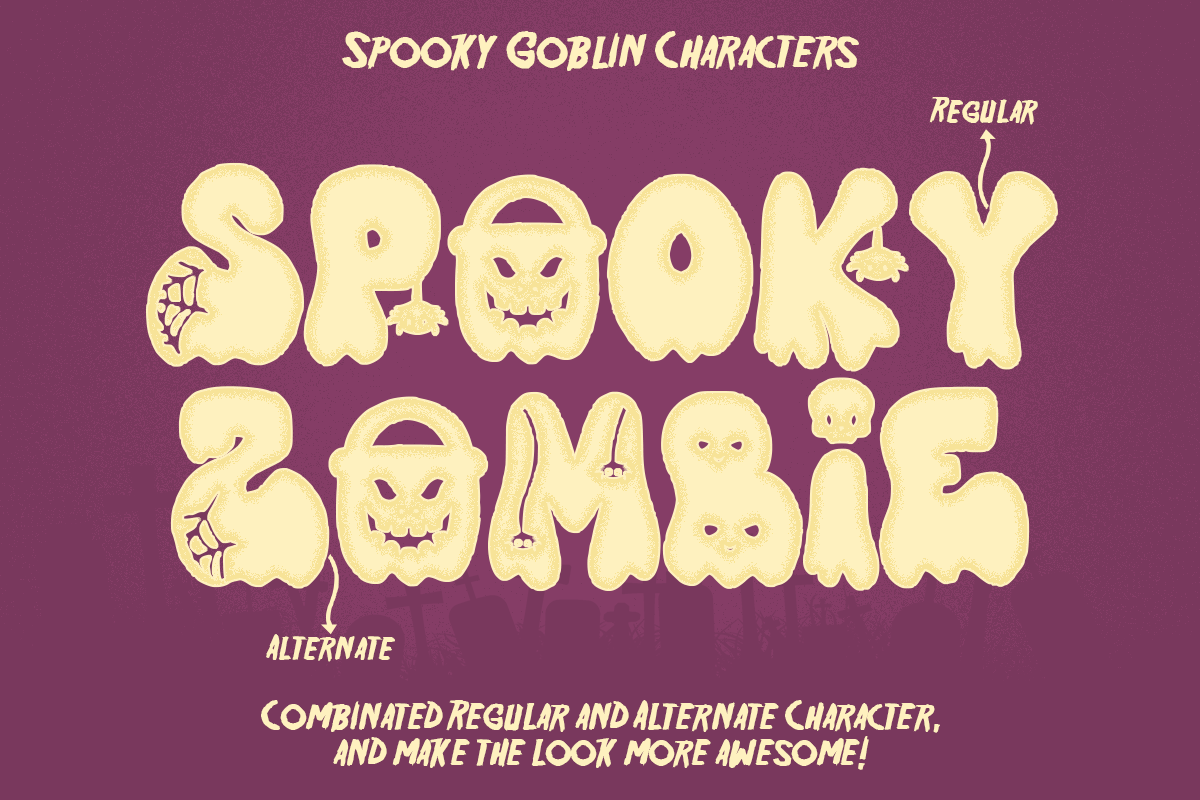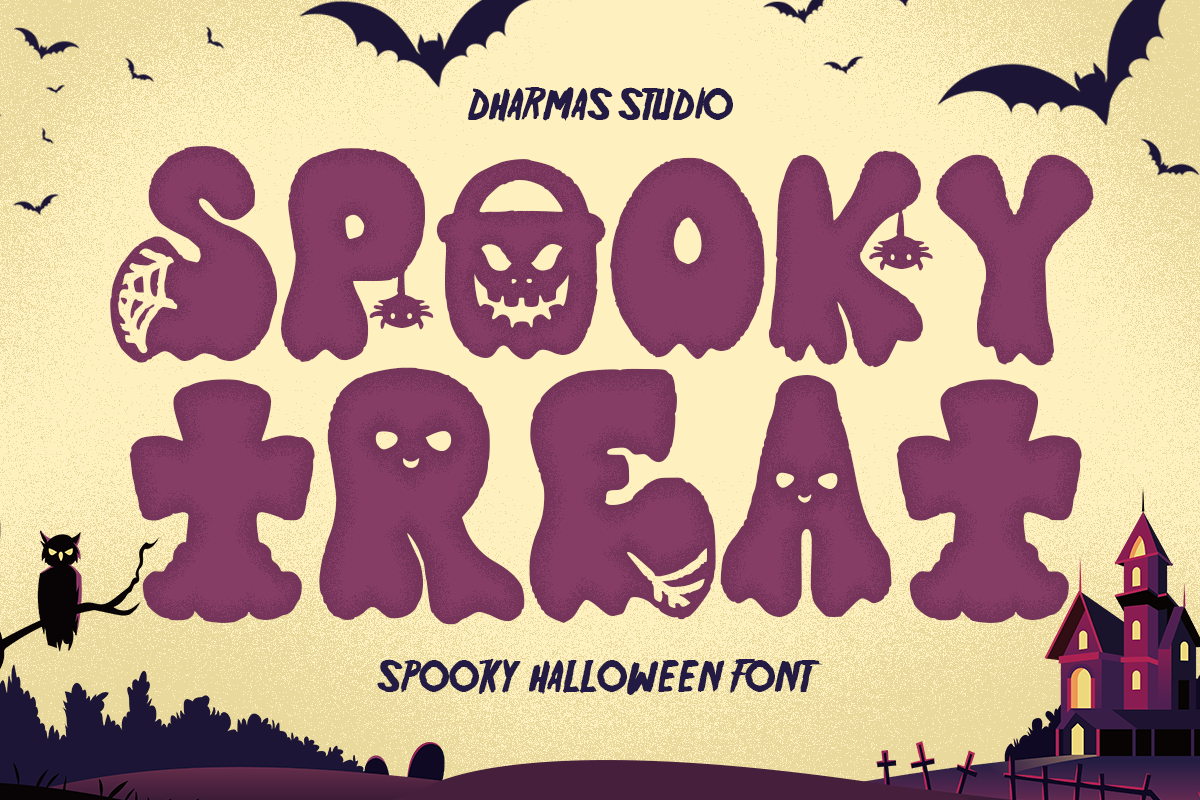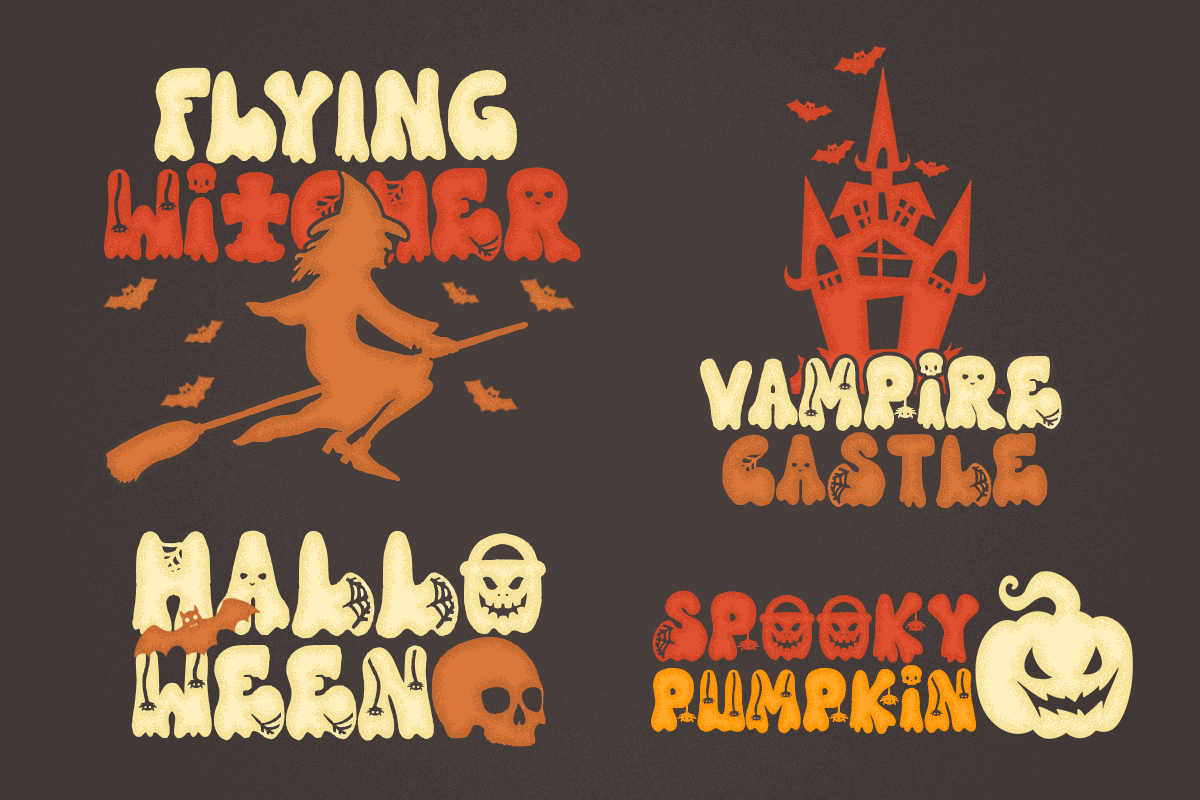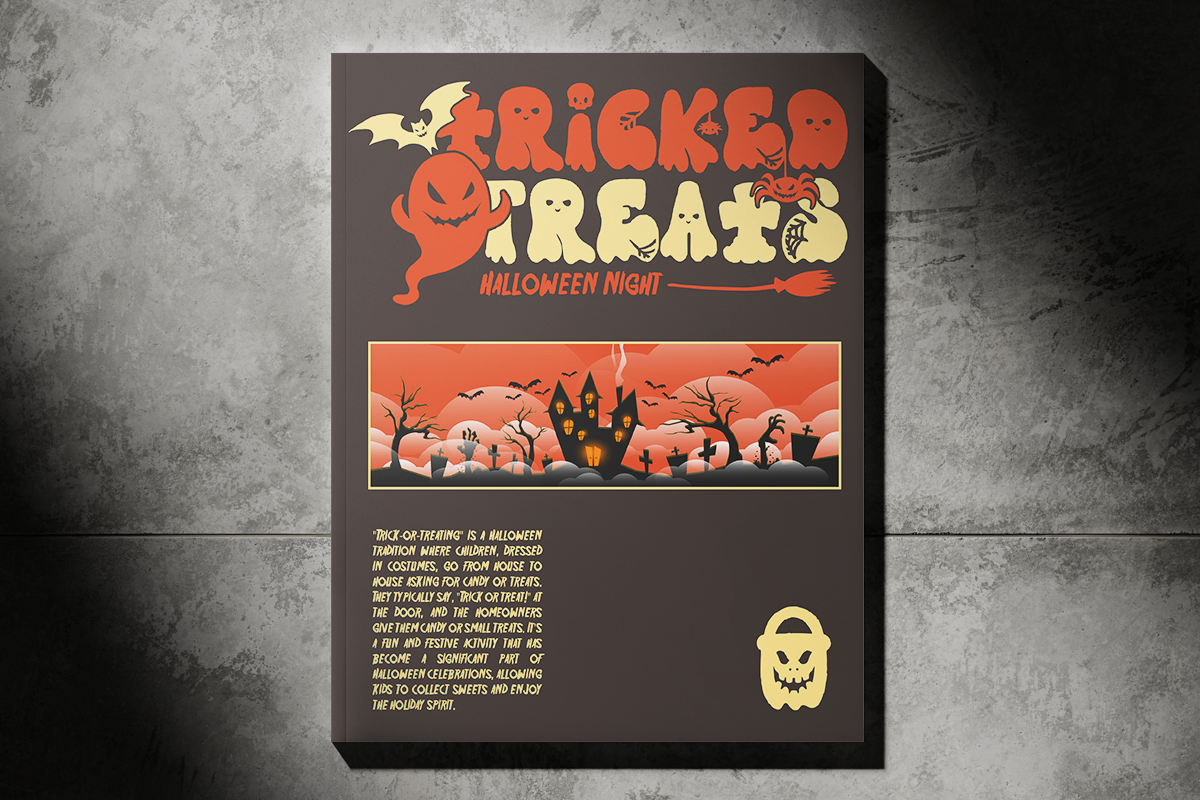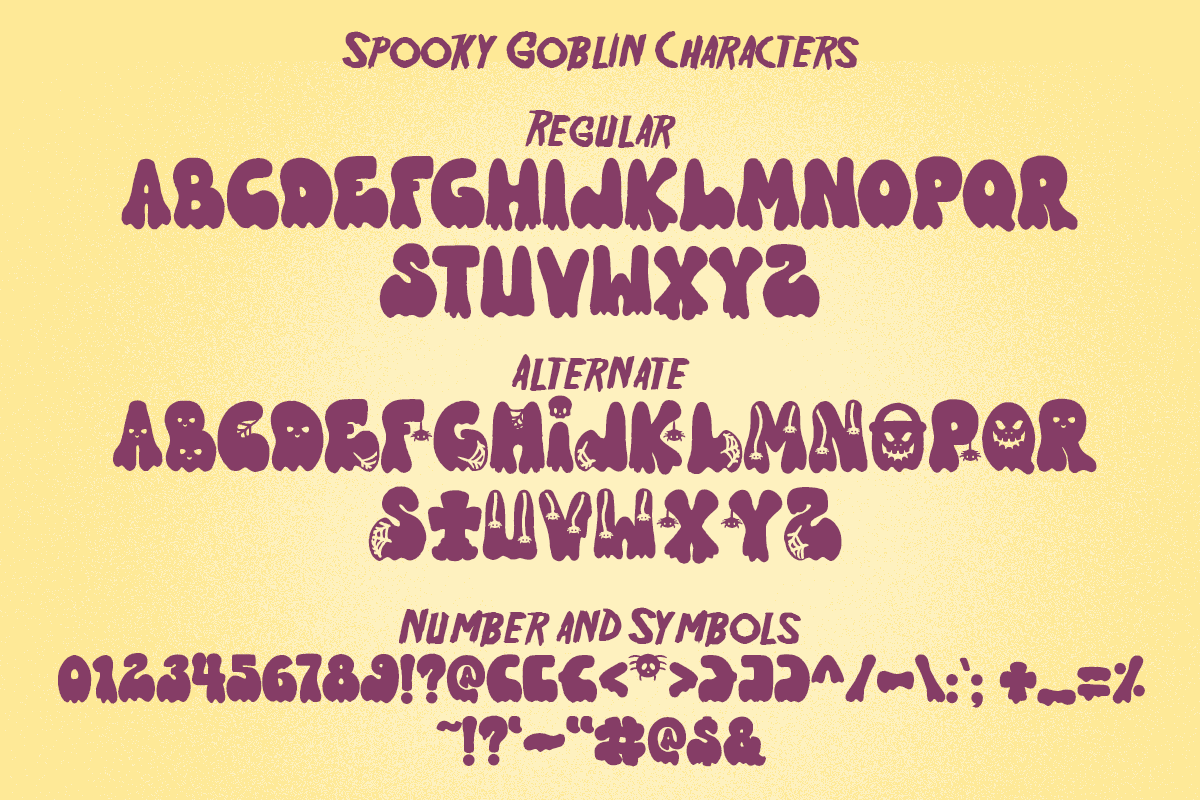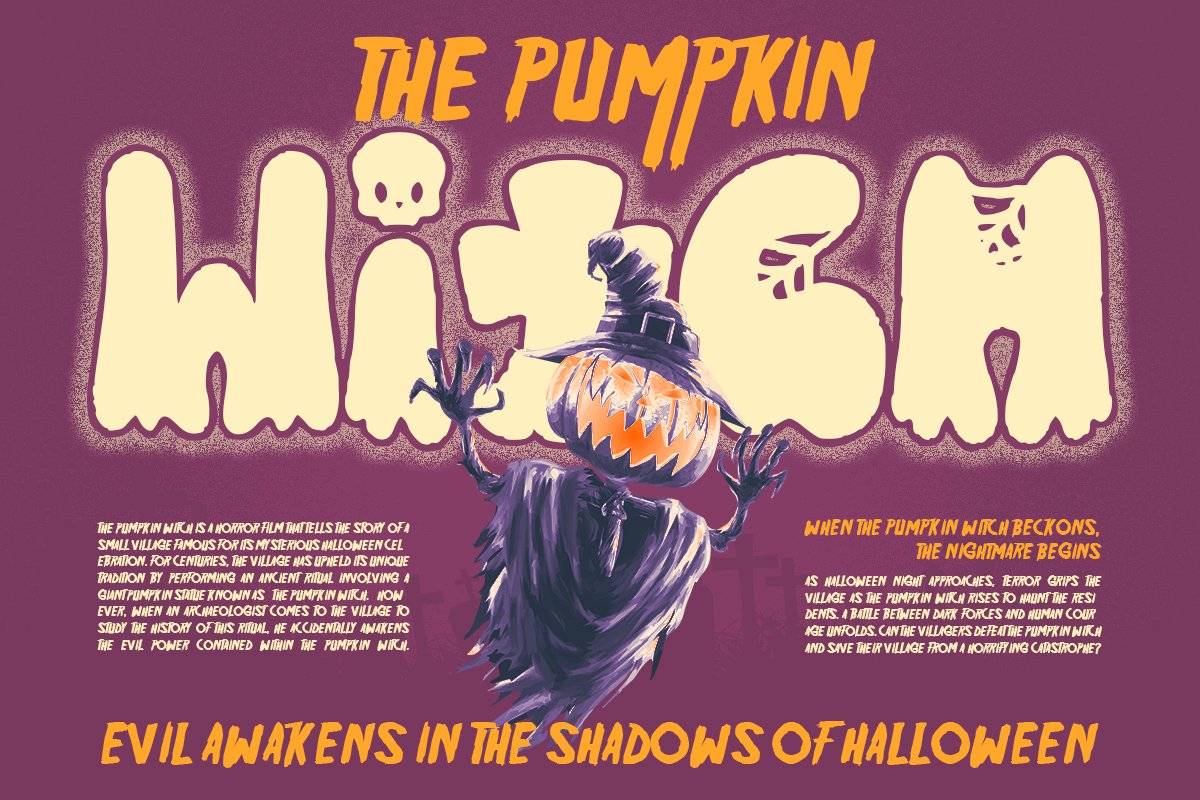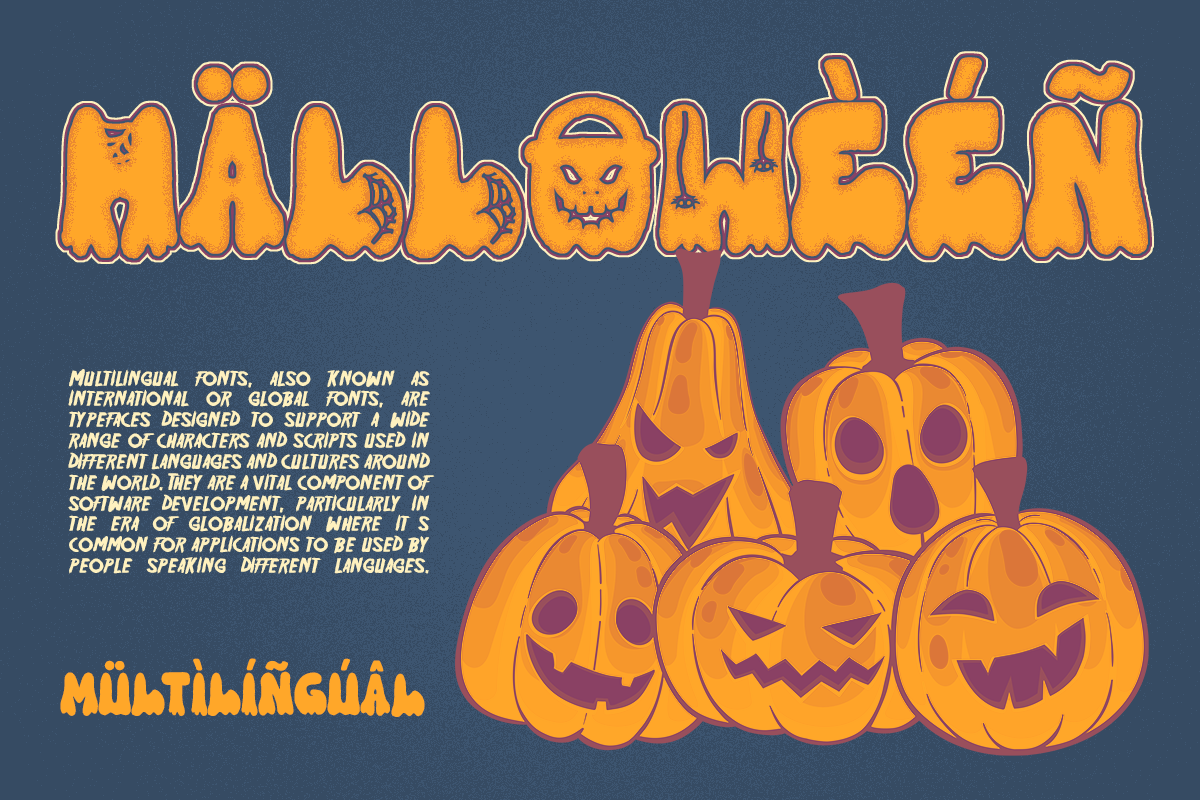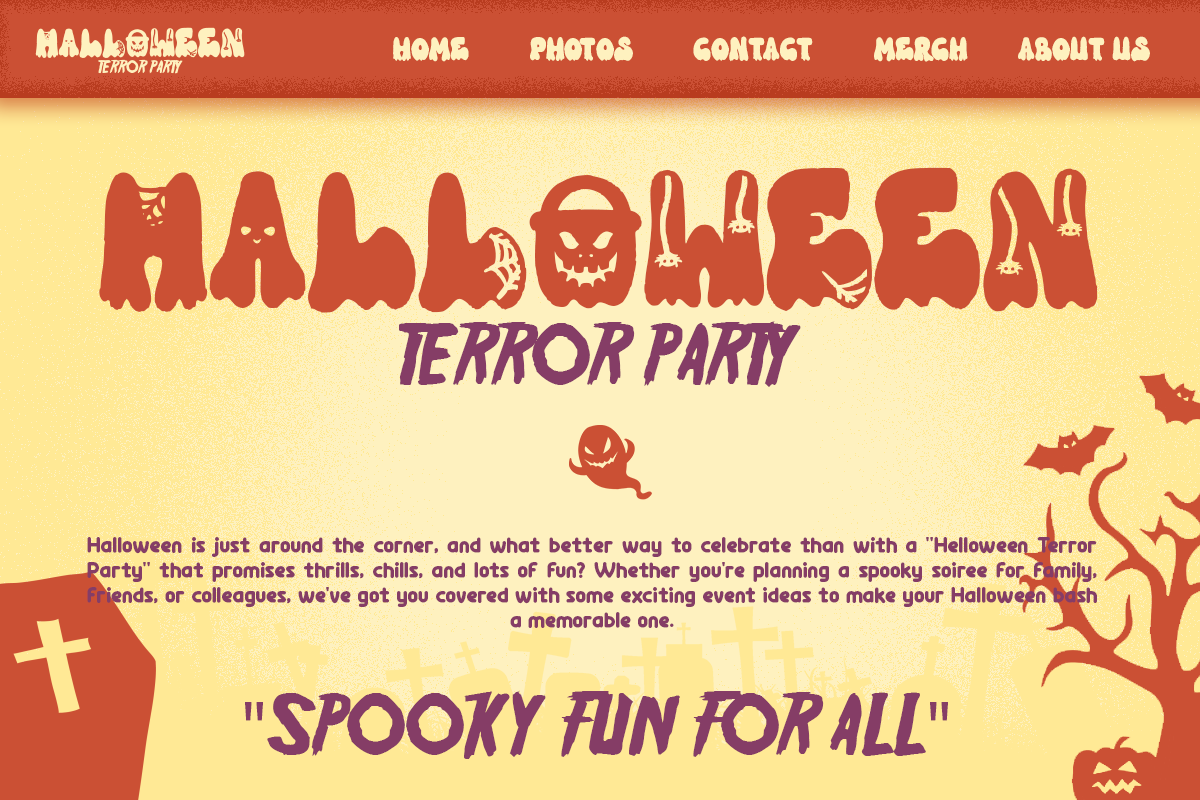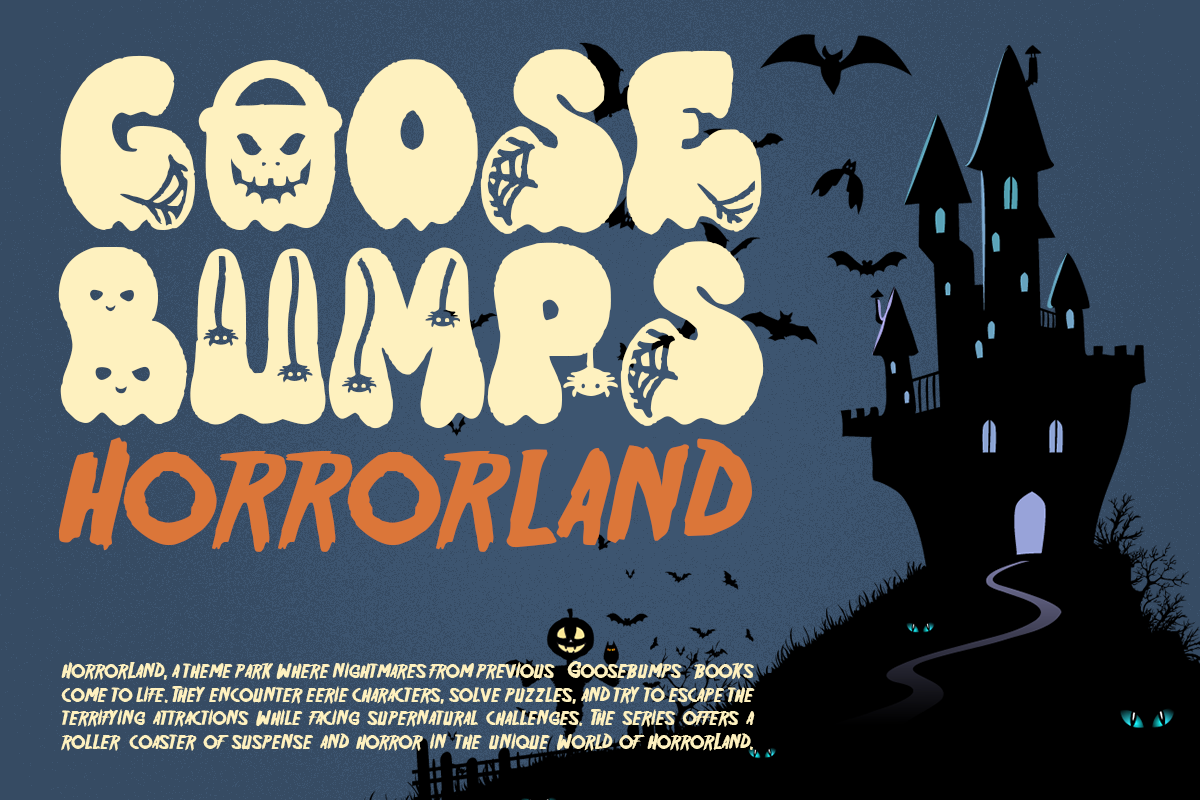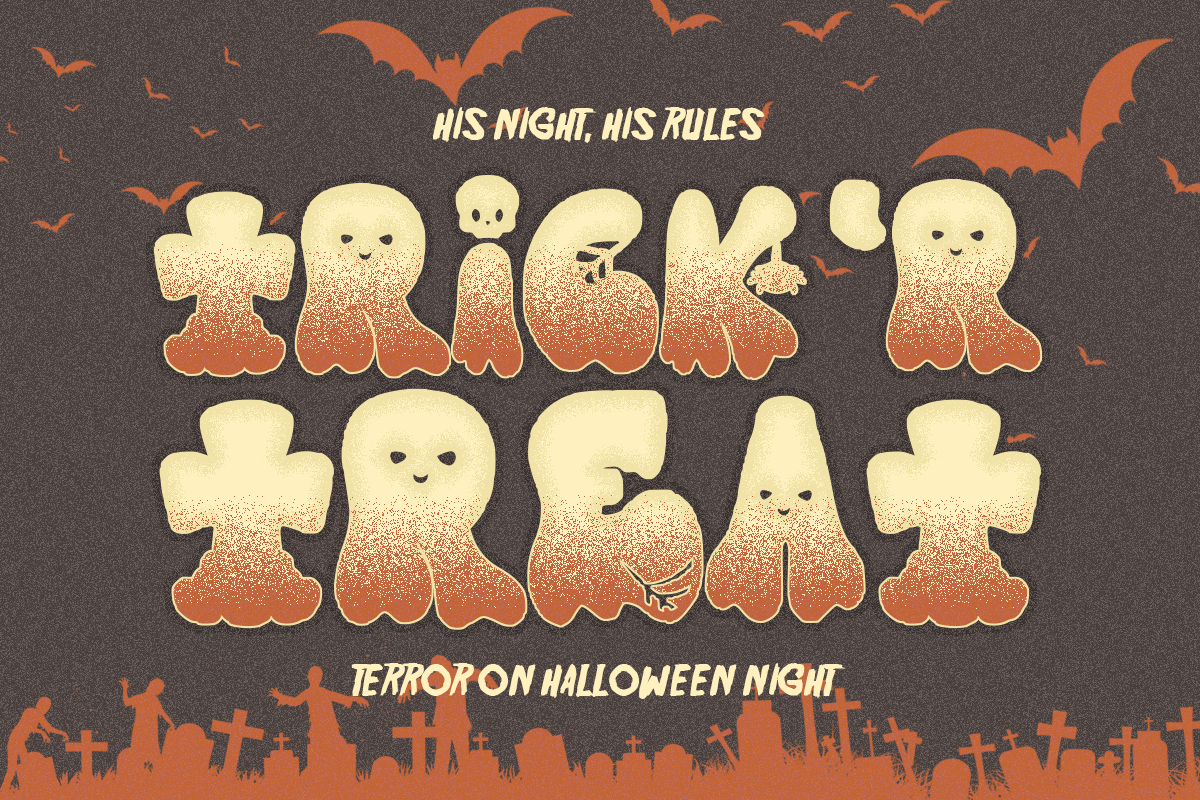
Spooky Treat - Halloween Font
Introducing a new Halloween event font, SPOOKY TREAT!
The ultimate Halloween font that will send shivers down your spine! SPOOKY TREAT features a haunting dripping effect, complete with ghostly elements, spiders, and cobwebs, making it the perfect addition to your spooky projects.
SPOOKY TREAT is incredibly versatile and ideal for a wide range of creative endeavors, including Cricut designs, t-shirts, retro-themed projects, Halloween invitations, mugs, stickers, materials for teachers, Goodnotes, and so much more!
Unique Alternates with spooky element
Multilingual Supports: (Afrikaans, Albanian, Catalan, Croatian, Czech, Danish, Dutch, English, Estonian, Finnish, French, German, Hungarian, Icelandic, Italian, Lithuanian, Maltese, Norwegian, Polish, Portuguese, Slovenian, Spanish, Swedish, Turkish, Zulu)